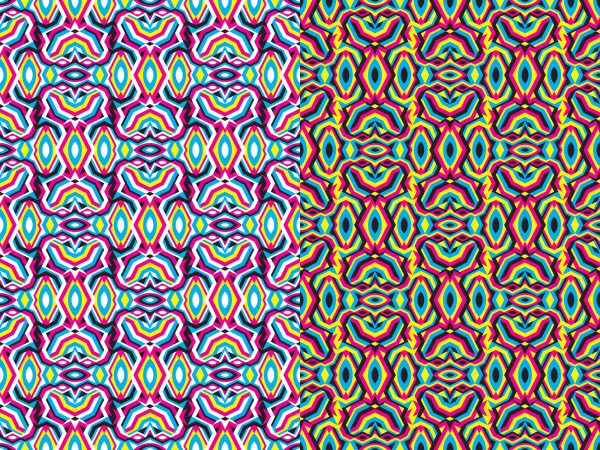
This looks like especially powerful. (What about a very small touch of yellow?).
these are the "original" versions from the past. i slightly reworked the geometry in this fontstruct specimen. and i expect to come up with several variants in the future (including those with a very small touch of yellow!)
I like both, present and original.
Why isn't this a TP...
So cool